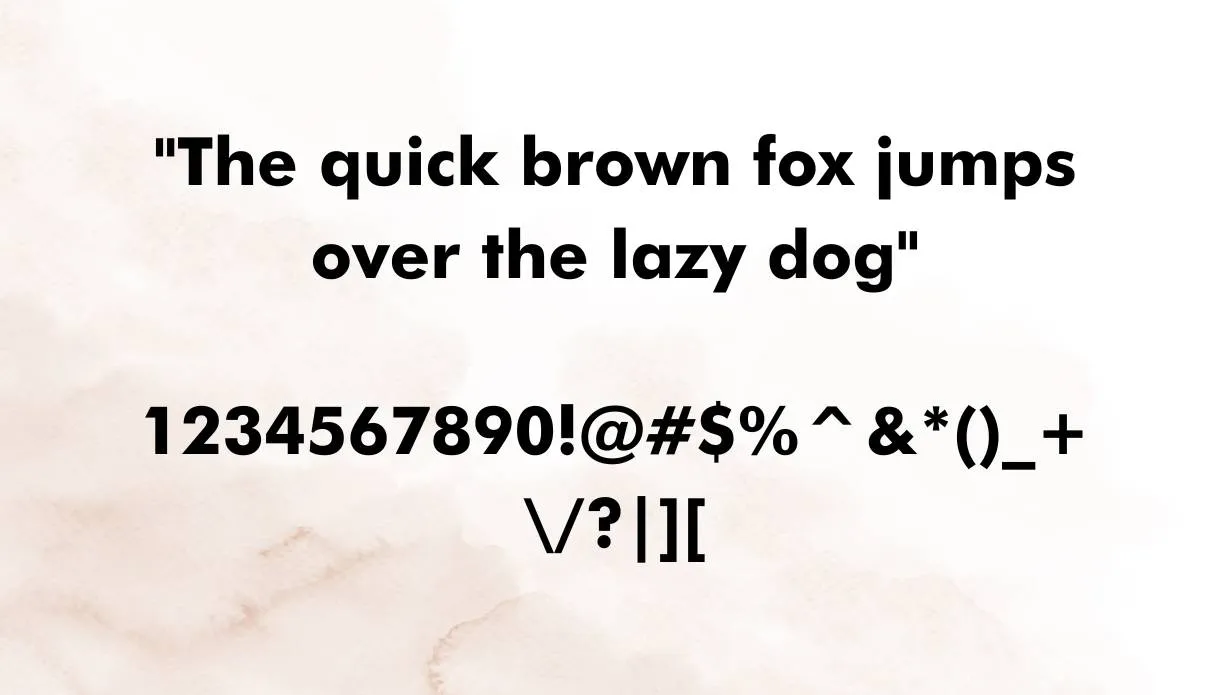
The Futura MD BT Font is a classic and timeless option in typography, ideal for projects looking for a clean and elegant aesthetic. Its sleek characters make it suitable for various applications, guaranteeing a sophisticated look.
| Name | Futura MD BT Font |
| Designer | Paul Renner |